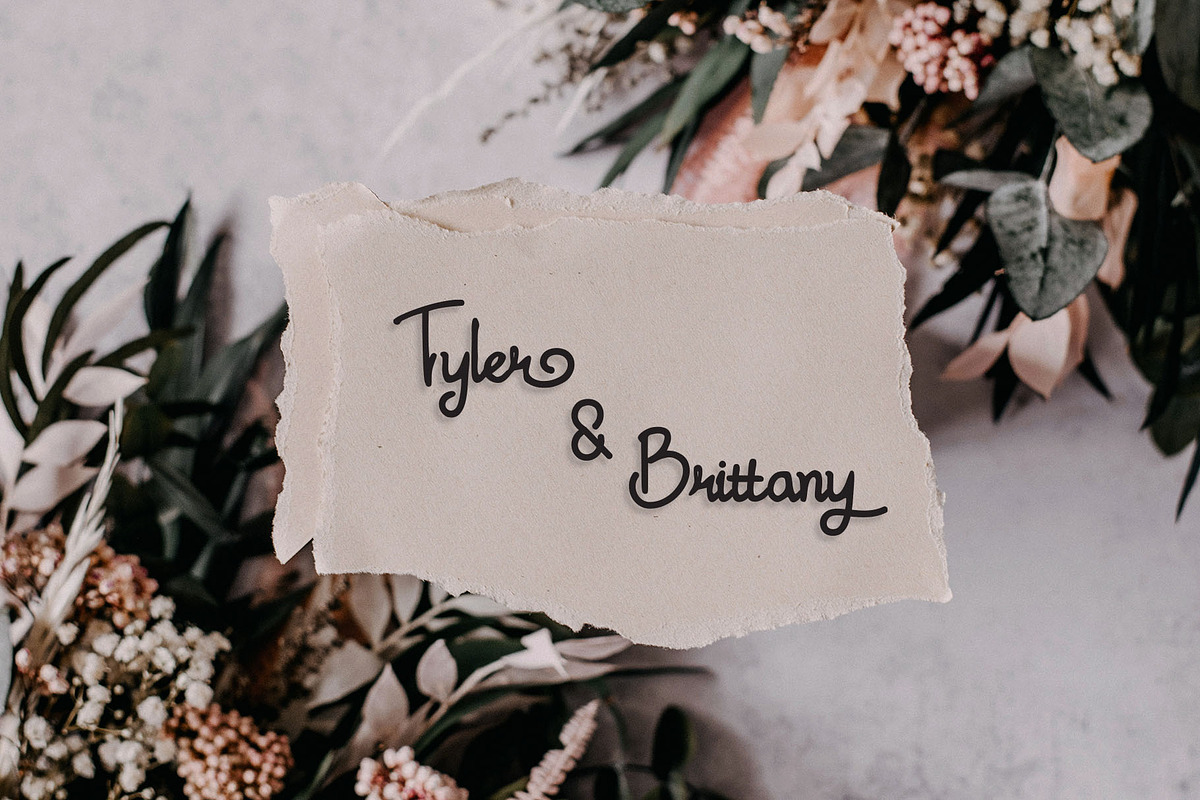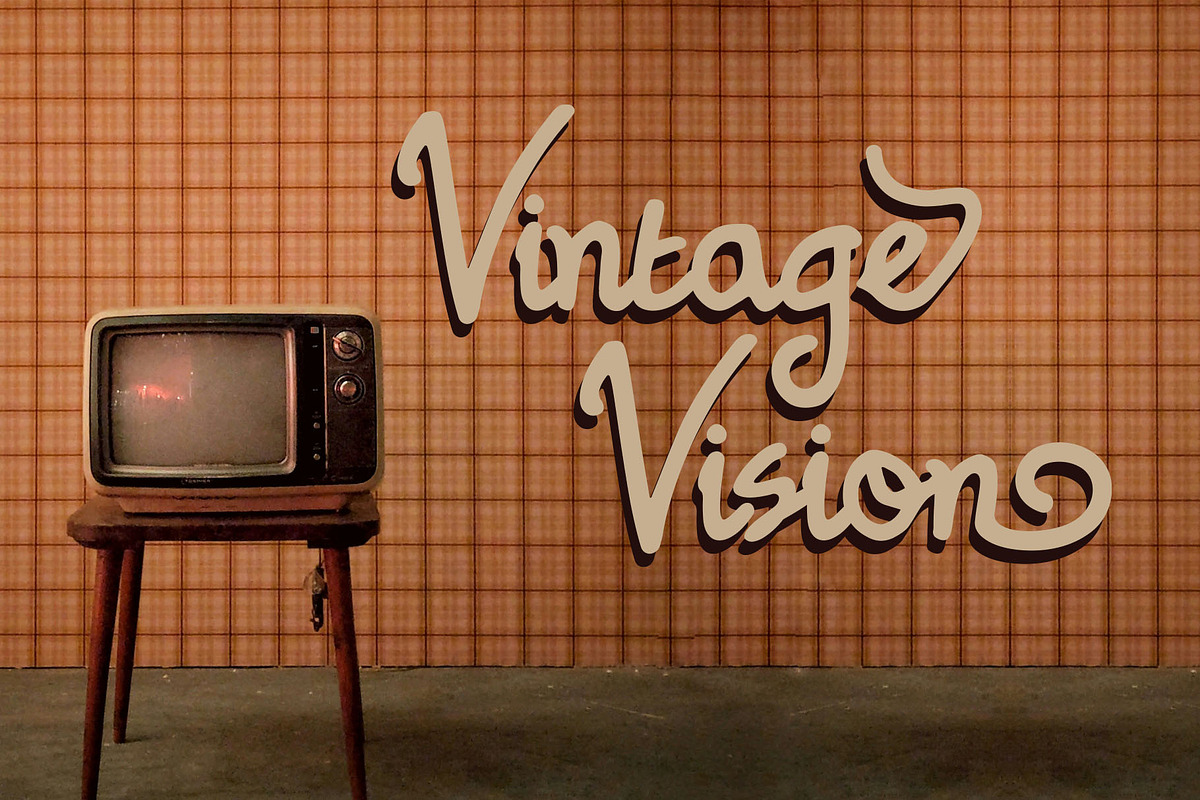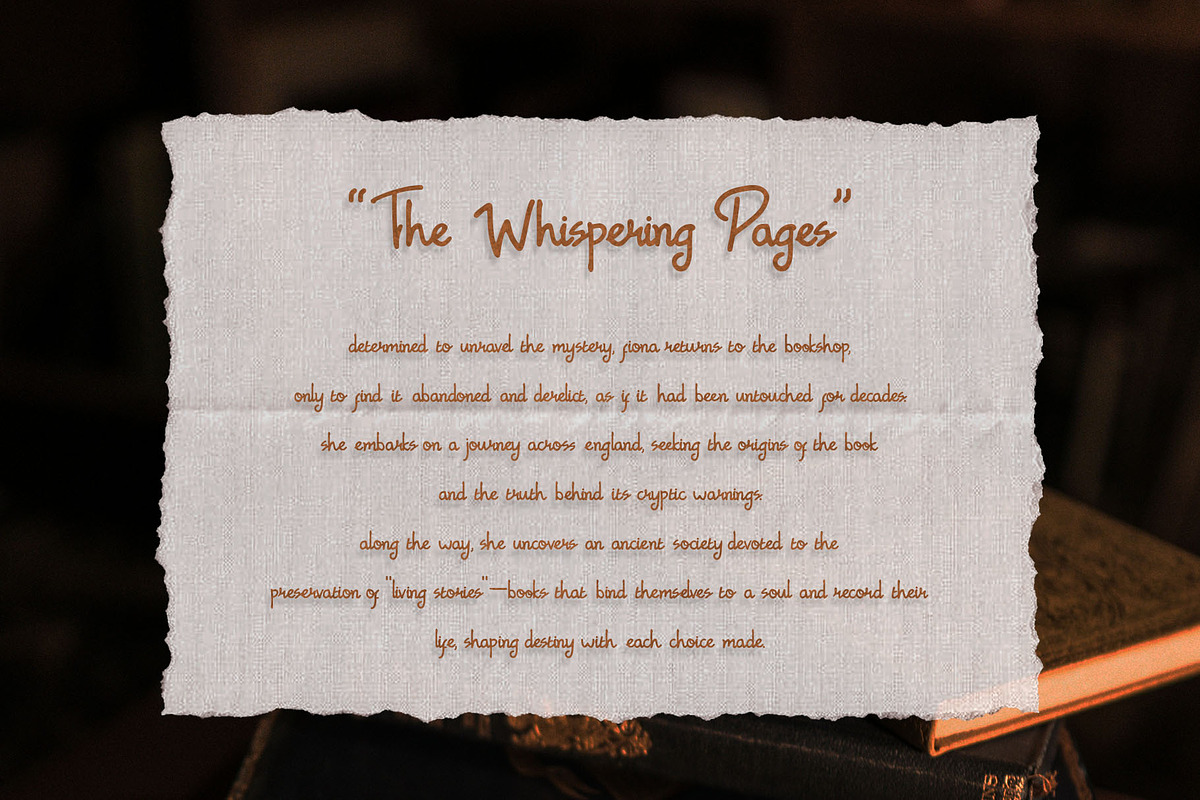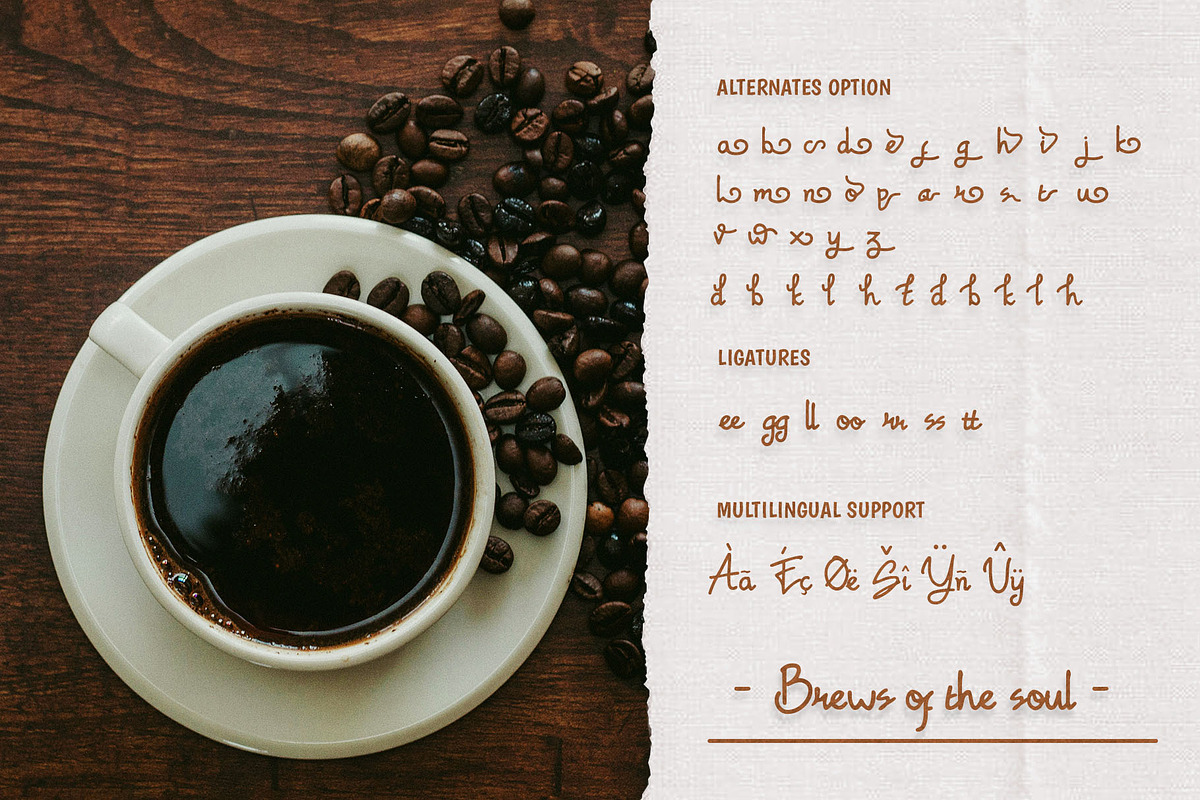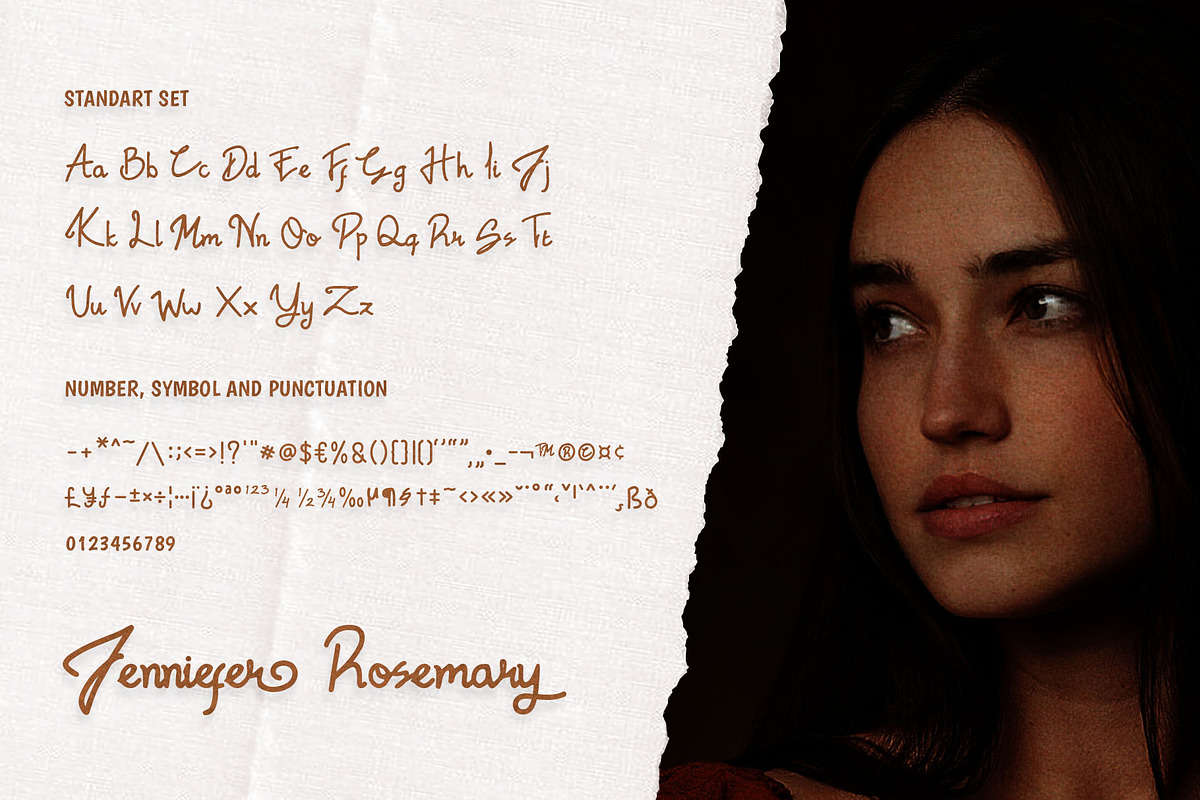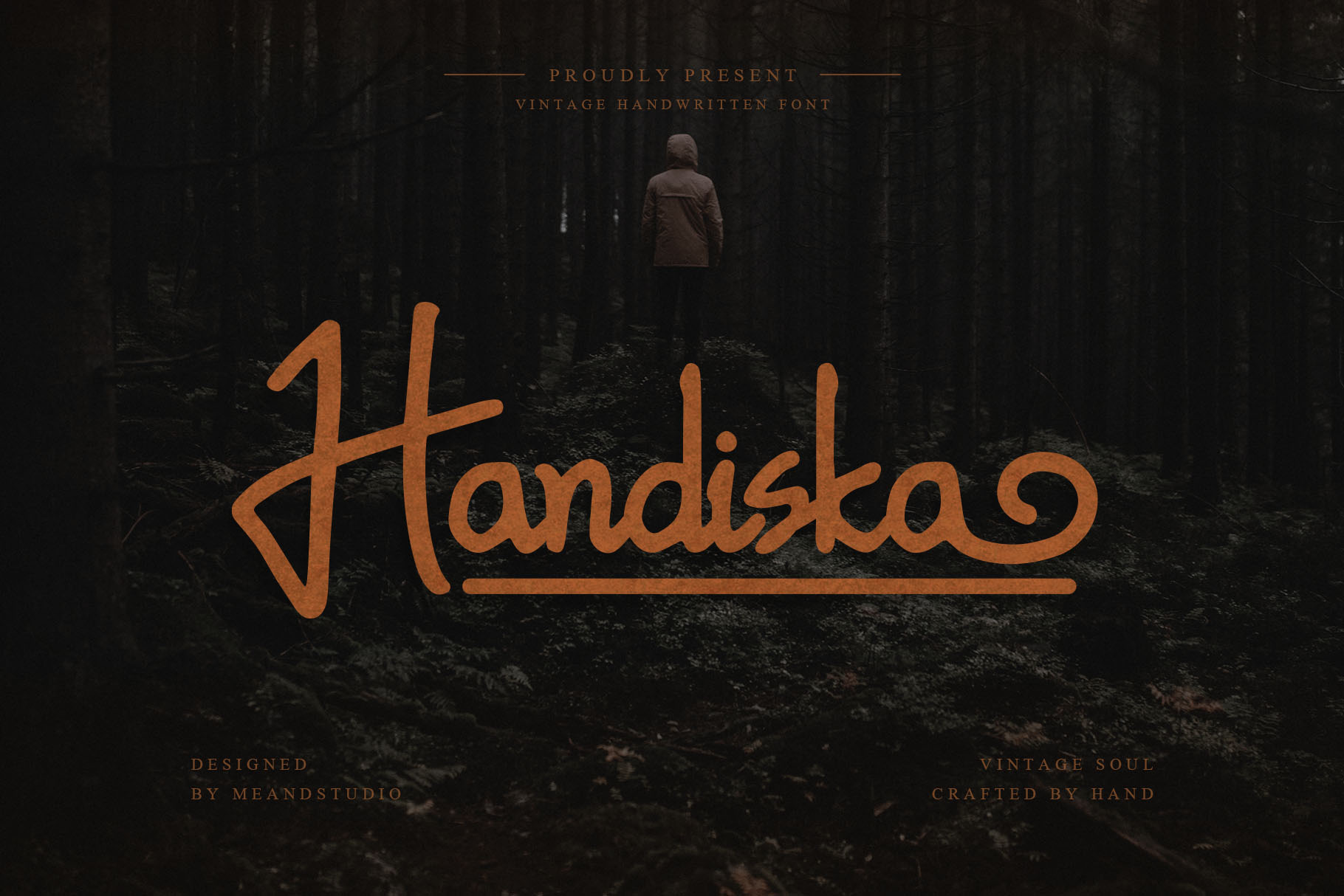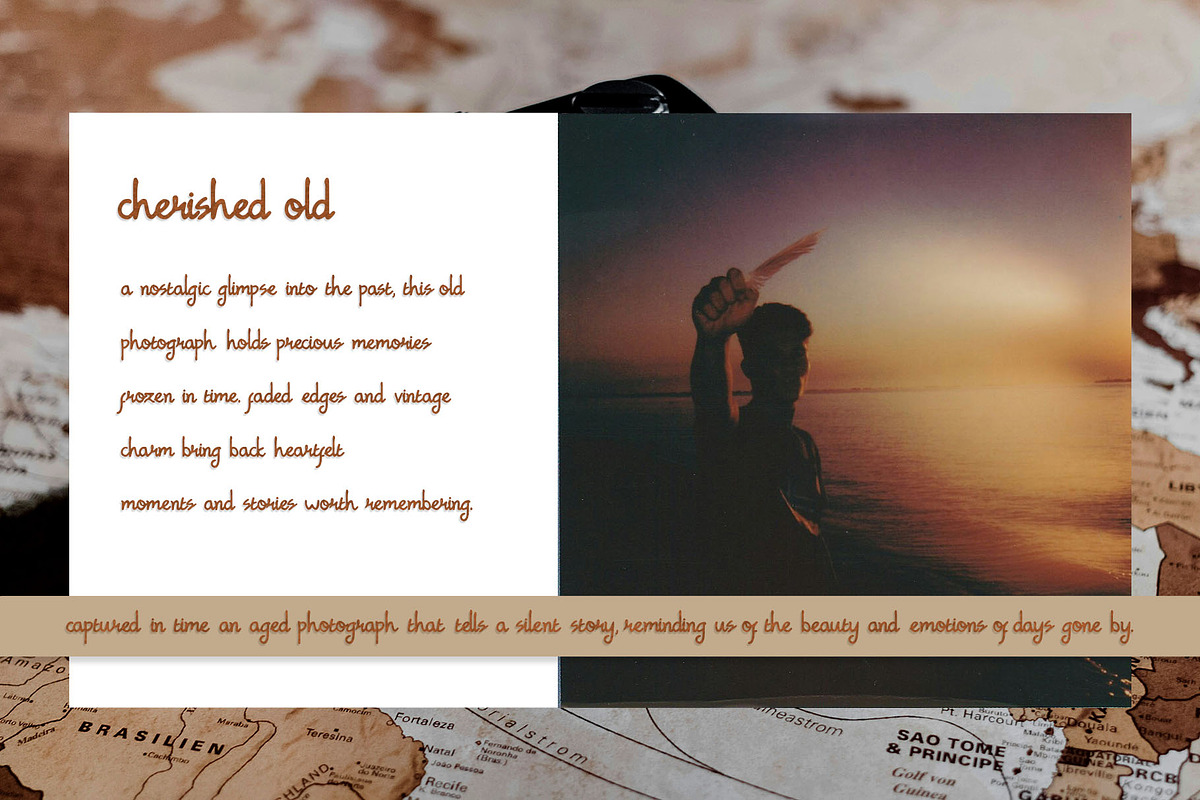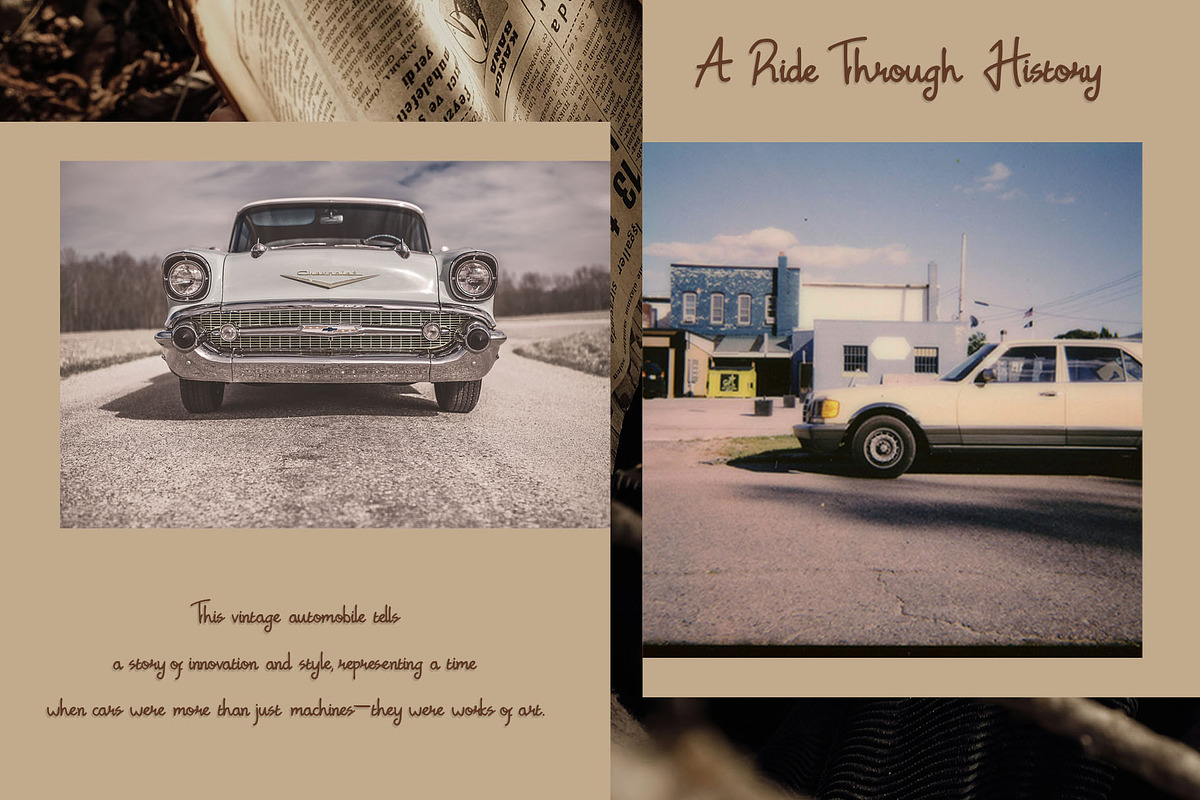
Handiska – Handwritten Script Font
Introducing Handiska – A Handwritten Font with Soul
Handiska is a beautifully crafted handwritten font that exudes warmth, elegance, and personal touch. With smooth strokes and a charming flow, this typeface is perfect for branding, packaging, wedding invitations, social media graphics, and anything that needs a handwritten feel.
Uppercase & Lowercase Letters
Special Characters & Symbols
Stylistic Alternates – to give your designs more variation and a unique signature
Ligatures – for seamless text combinations
Multilingual Support – covering a wide range of Latin-based languages
✦ Perfect For: Branding & Logo Design
Packaging & Labels
Quotes & Social Media Posts
Invitations & Stationery
Coffee Shop Menus or Lifestyle Products
With its authentic strokes and natural texture, Handiska brings a personal, cozy feel to your designs — just like a warm cup of coffee on a rainy day. ☕
💡 Add a touch of authenticity and charm to your next project with Handiska.